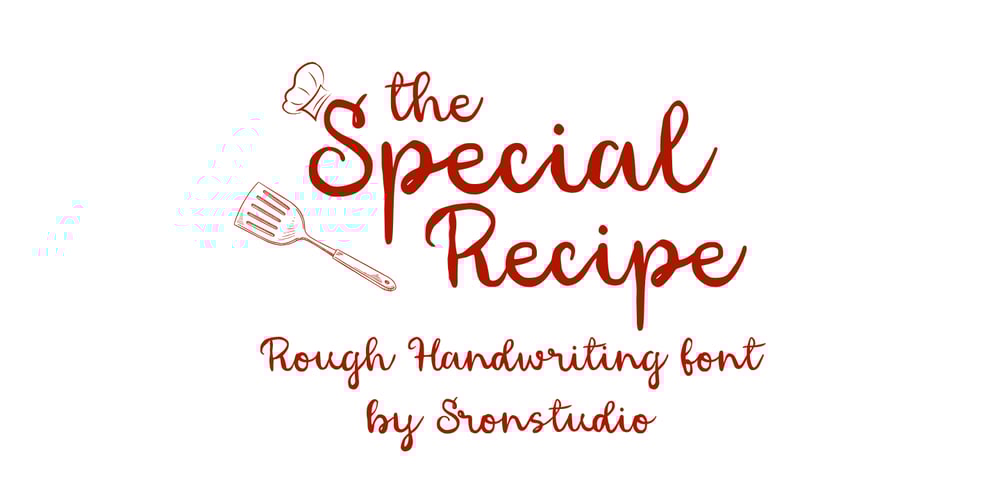
Special Recipe
Special Recipe font
Special Recipe Font Family was designed by Muhamad Yusron Billah and published by Sronstudio. Special Recipe contains 1 styles and family package options. Introducing “Special Recipe,” a rough handwriting font that adds a unique and personal touch to your designs. With its textured strokes and organic feel, this font captures the essence of hand-crafted lettering. Perfect for projects that need an authentic, raw, and creative vibe, “Special Recipe” is ideal for logos, packaging, quotes, and more. Bring your designs to life with the distinctive charm of “Special Recipe.”Included:- Numeral & Punctuation- PUA Encoded- Multilingual support- Simple Installation- Work both on Mac and WindowsThank you very much ๐Ÿ™‚